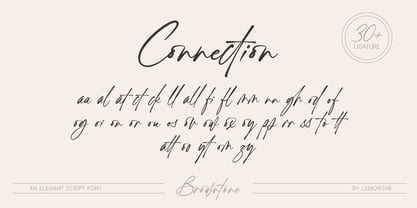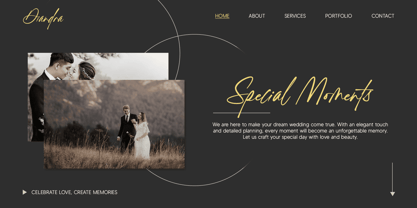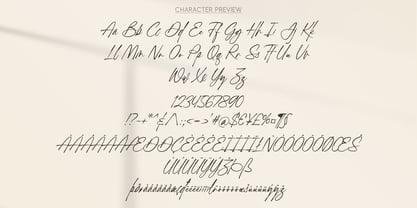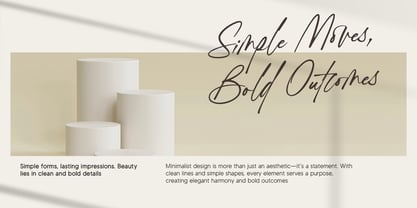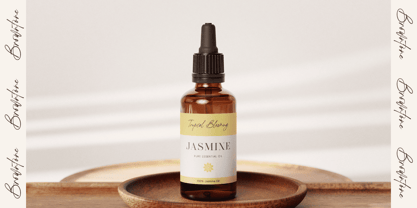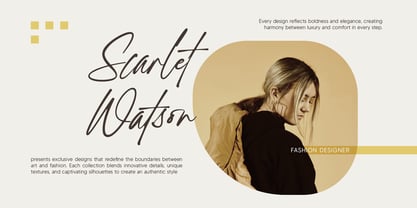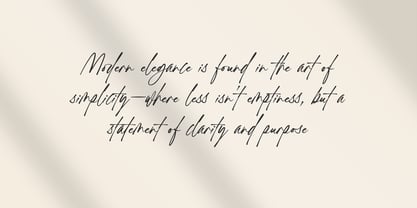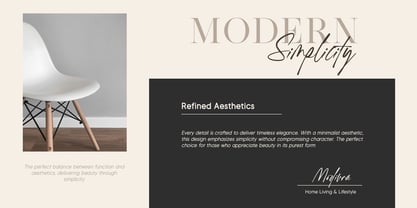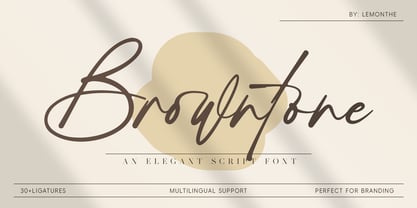
Browntone
by Lemonthe
The Browntone Font Family was designed by Dwi Ahidian and published by Lemonthe. Browntone contains 1 styles. More about this family
Browntone is an elegant script font designed with smooth and natural letter flow, creating a graceful handwritten impression. This font offers a luxurious and modern appearance, making it ideal for logos, product packaging, invitations, or other design elements that require a classy and professional look.
"Lemonthe is a type foundry operated by Dwi Ahidian, a letter enthusiast who enjoys calligraphy and loves experimenting with letter forms. Lemonthe provides a captivating collection of typefaces, each carrying a creative and unique experimental touch, meticulously crafted by hand. Dedication to detail ensures that some typefaces emanate a deep and serious aesthetic, while others showcase a more playful and creative side."